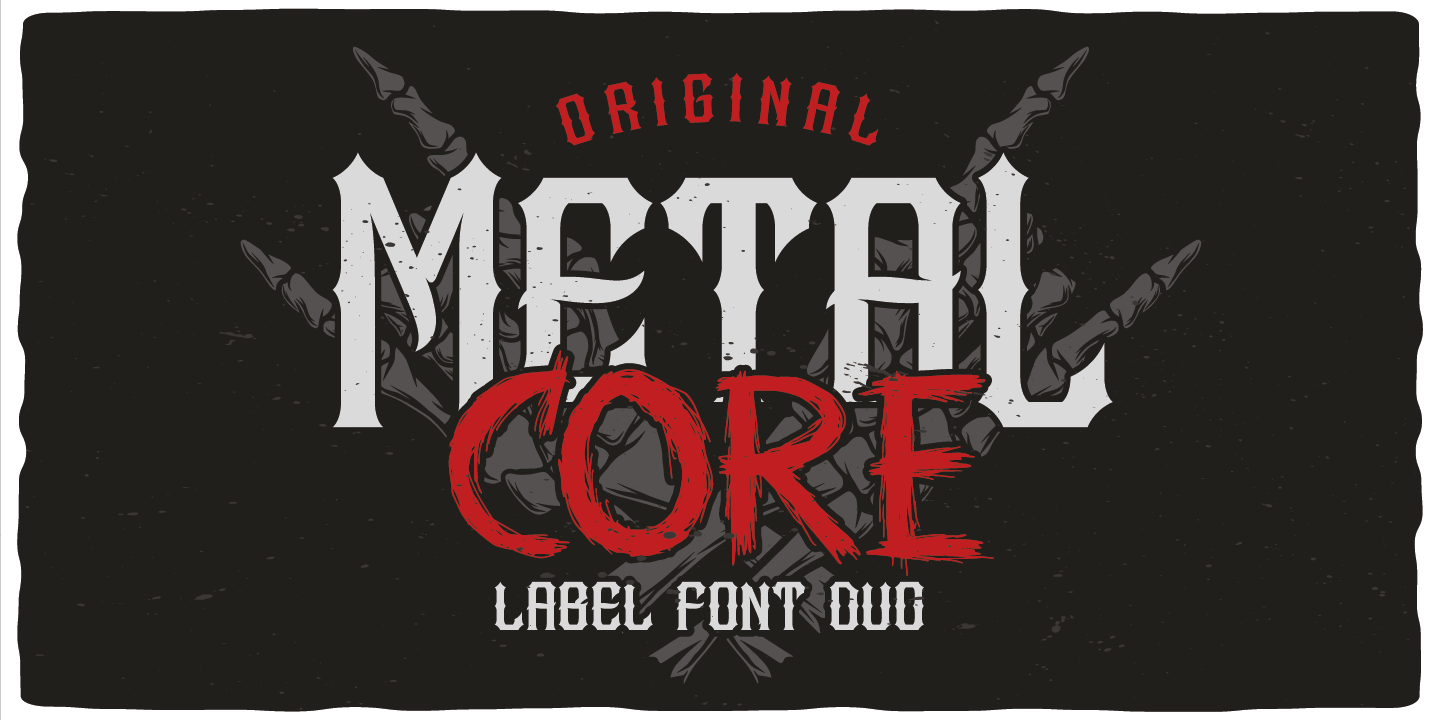
Metal Core Font is perfect for heavy metal band logos, rock music albums, concert posters, music festival graphics, band merchandise, tattoo parlor signage, motorcycle club branding, extreme sports marketing, underground music venues, and rebellious youth culture communications.
What makes Metal Core Font exciting is its intense metallic power that captures the raw energy and aggressive spirit of heavy metal music with bold, razor-sharp letterforms that command attention and respect. This aggressively designed typeface features angular character shapes with sharp edges that mirror the cutting intensity of metal riffs and thunderous percussion. The font's fierce personality and unyielding aesthetic make it the ultimate choice for brands that need to communicate strength, rebellion, and uncompromising attitude in metal culture contexts.
Metal Core Font family includes powerful style variations: Regular, Bold, Light, Shredded, Distorted, and Brutal styles. Each variation maintains the core metal identity while offering different levels of aggressive intensity for diverse heavy music applications and metal-focused brand communications.
Music designers and metal culture marketers consistently choose Metal Core Font Free Download for its unmatched ability to embody the relentless spirit of heavy metal through typography that resonates with metalheads and alternative music audiences worldwide.
The typeface incorporates authentic metal design principles that reflect underground music traditions while meeting contemporary band promotion standards. Its aggressive construction and razor-sharp detailing create powerful visual impact that cuts through noise while maintaining excellent readability across various metal media applications. The font's uncompromising nature supports authentic brand storytelling in metal music contexts.
Music industry professionals appreciate Metal Core Font for its exceptional performance across various metal touchpoints, from album artwork to digital streaming platforms. The font's consistent aggressive authenticity ensures brand coherence while supporting international metal scenes and diverse underground music communications.
The comprehensive character set includes metal-inspired symbols, aggressive punctuation marks, and hardcore elements that enhance metal storytelling and underground brand communication. Specialized spacing and kerning optimize the font's brutal impact for both large-scale concert signage and intimate band merchandise.
This devastating typeface excels in creating authentic brand identities for metal bands, music venues, and alternative culture organizations seeking to establish genuine connections with metal communities through typography that speaks their language and honors the uncompromising spirit of heavy metal music culture.